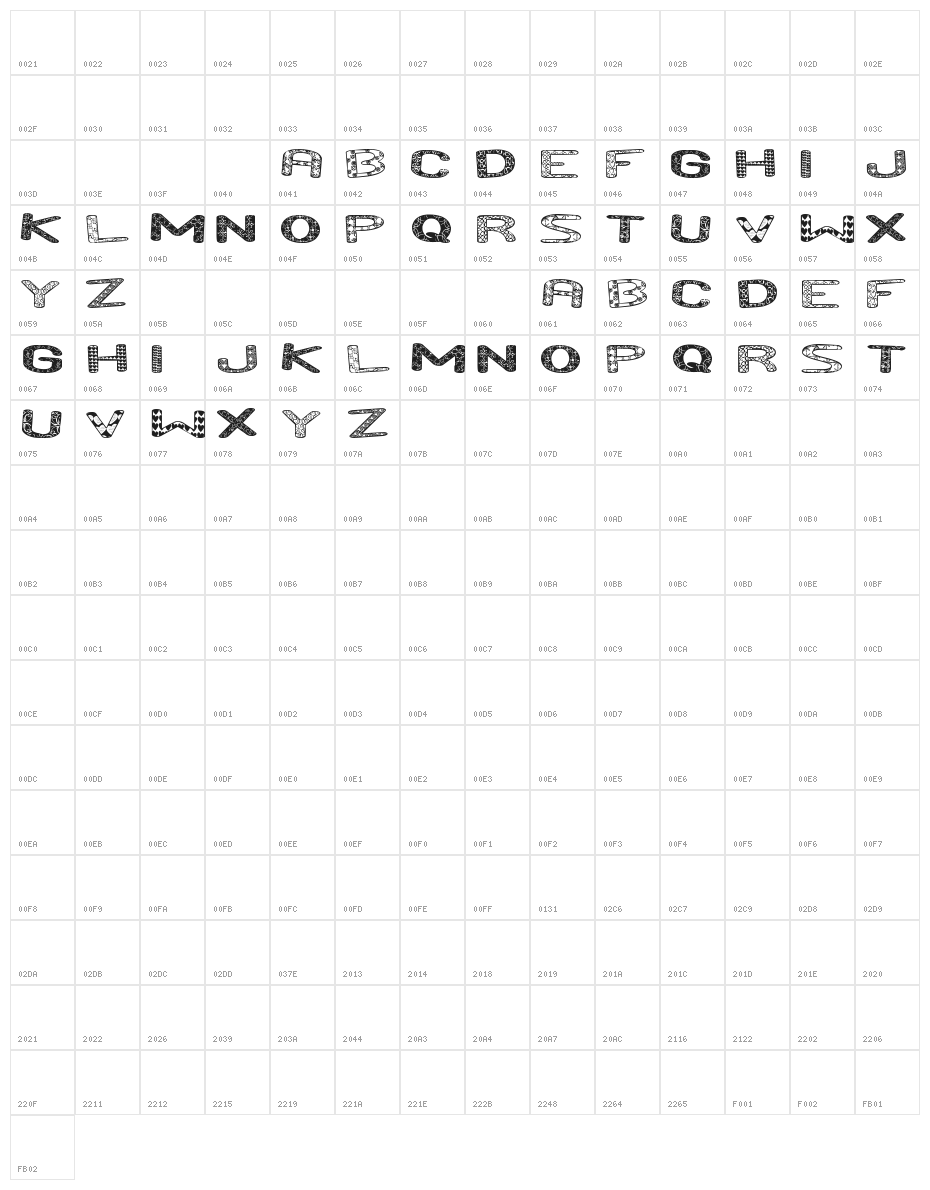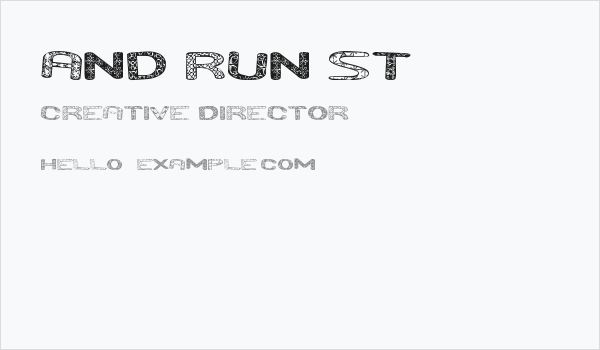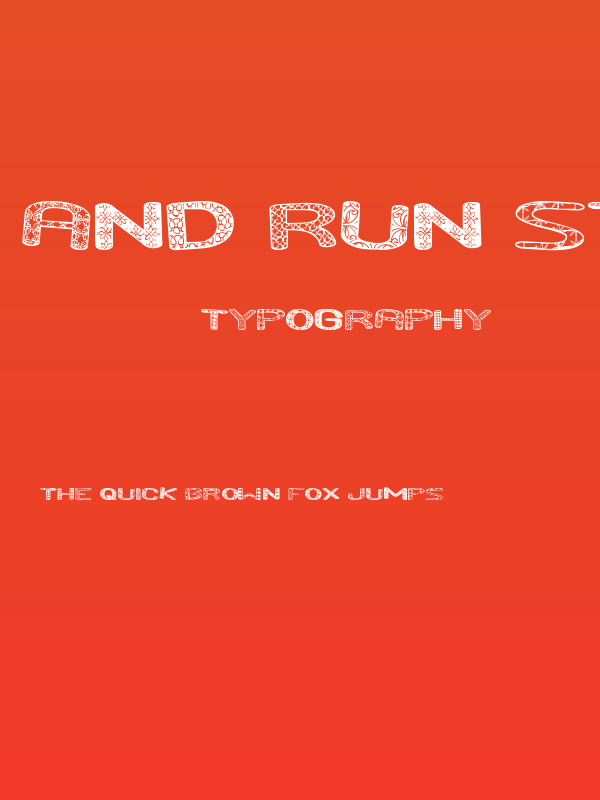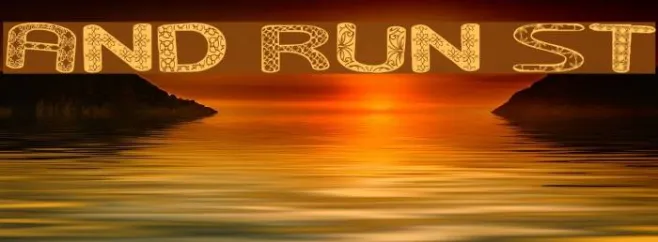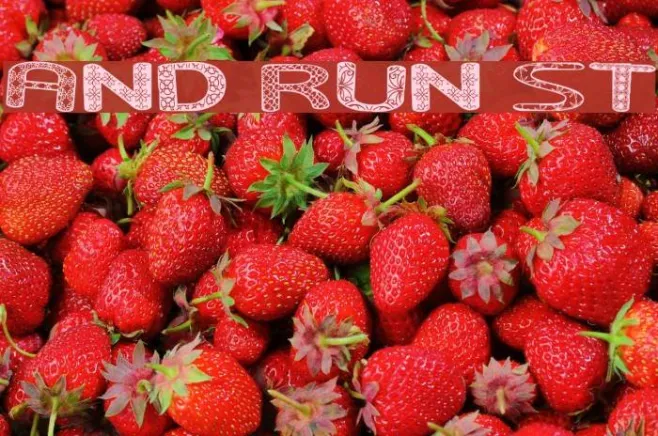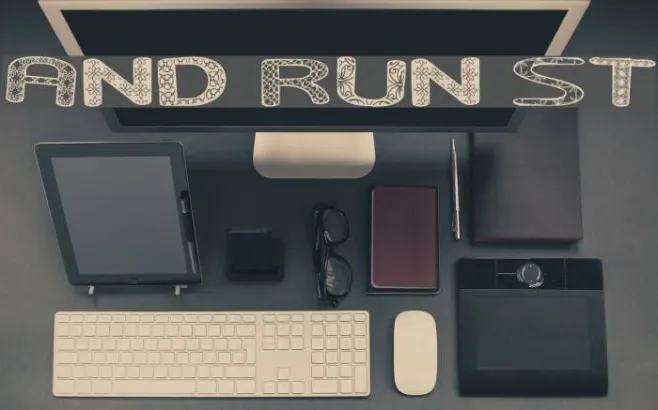
And Run St Font
And Run St Description
This font features a playful and decorative style, with each letter adorned with unique patterns and textures. The uppercase letters are bold and eye-catching, making them ideal for creative projects. The design incorporates a variety of geometric and organic shapes within each character, adding a sense of whimsy and artistic flair. The font's distinctiveness lies in its intricate detailing, which gives it a handcrafted appearance. It's well-suited for projects that require a fun and engaging visual element, such as children's books, posters, or branding for creative industries.
| Proposed Projects | Ideal for children's books, creative posters, and branding for artistic ventures. |